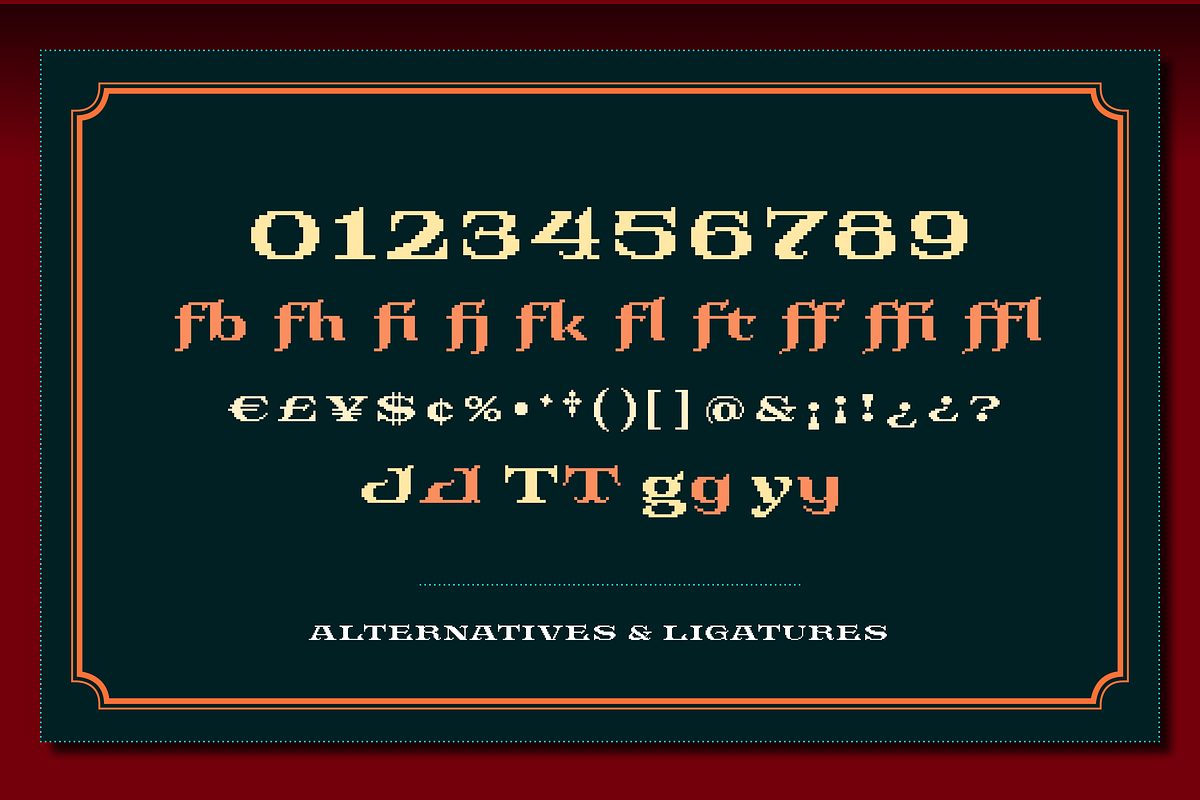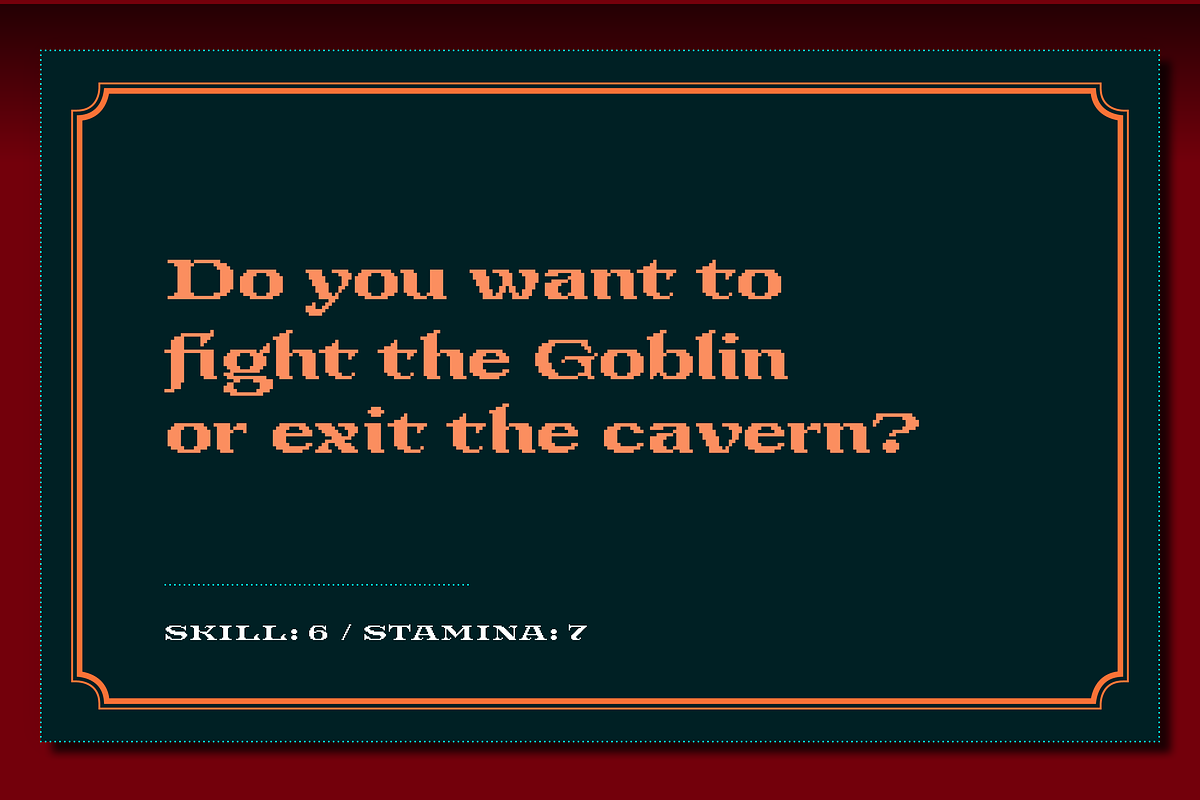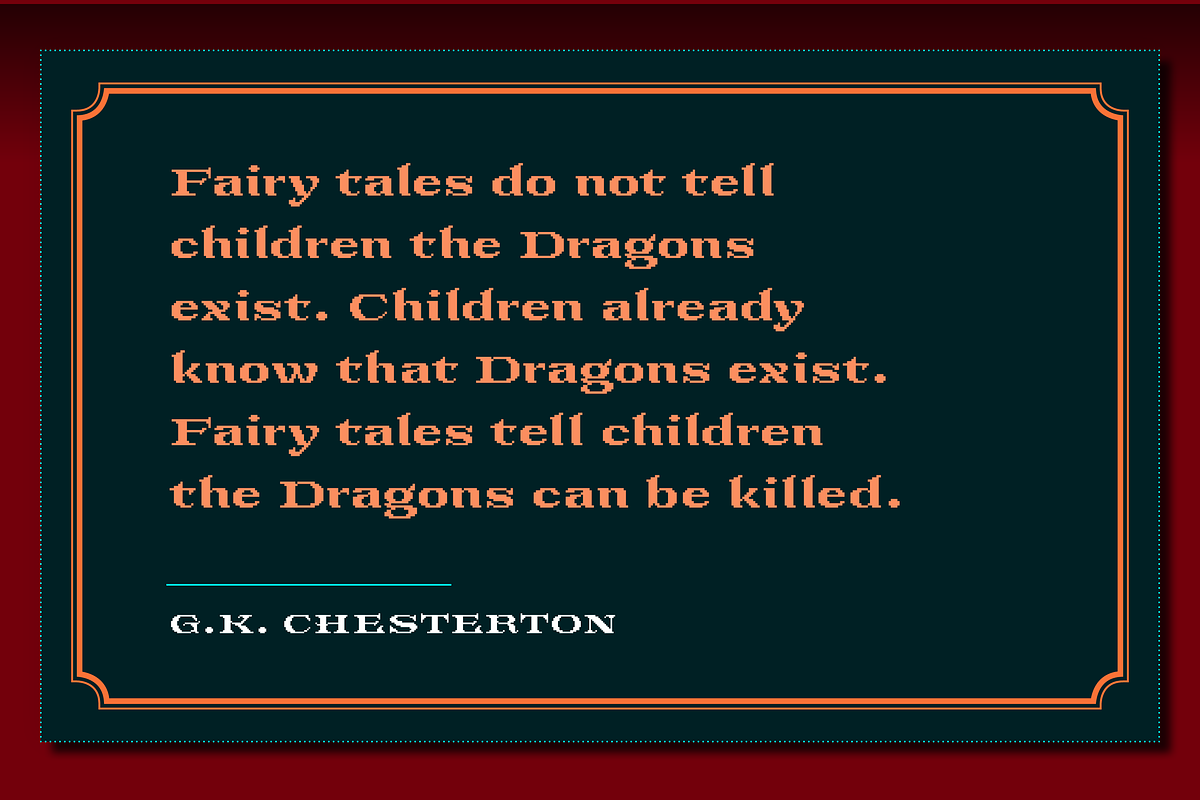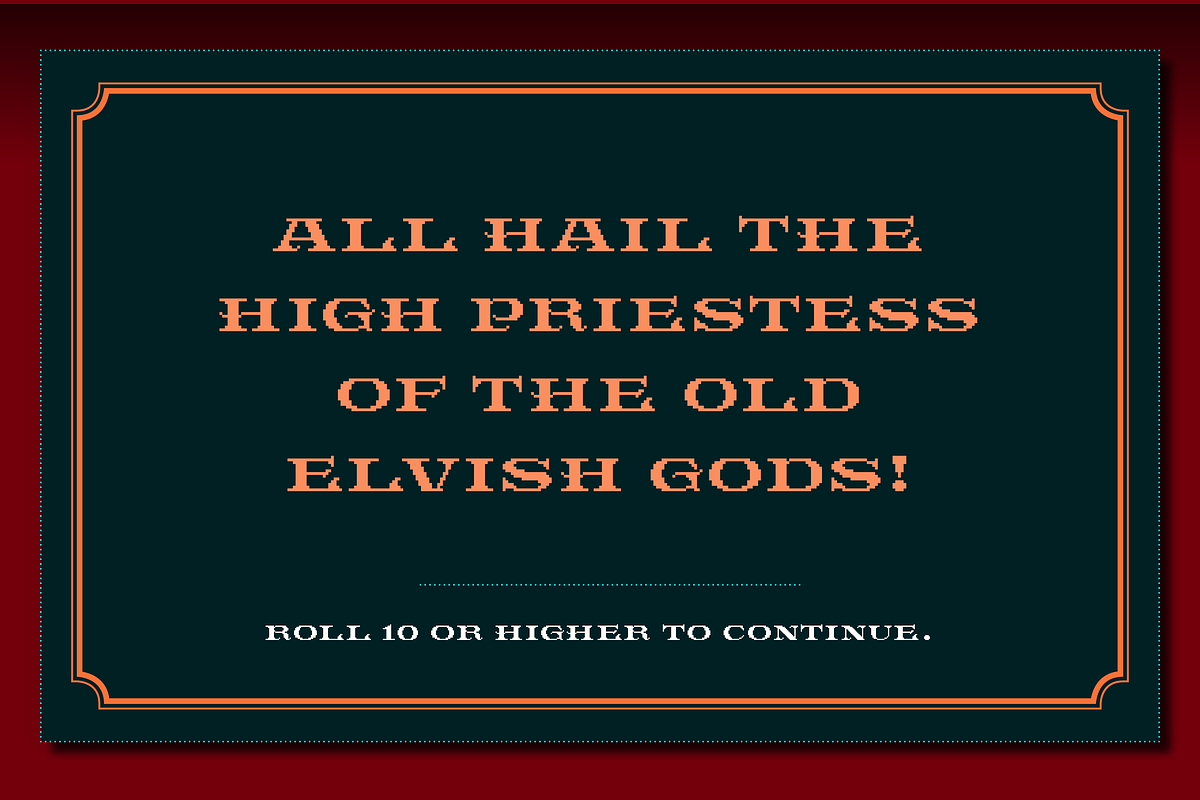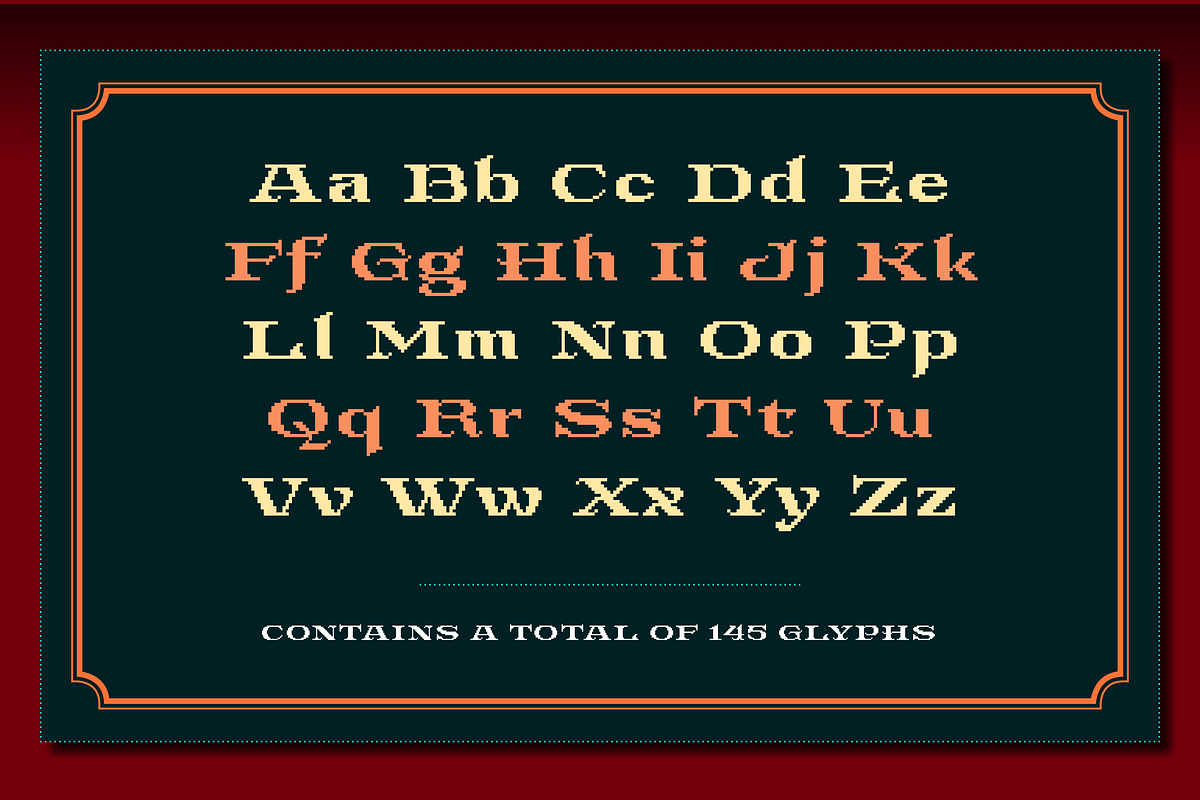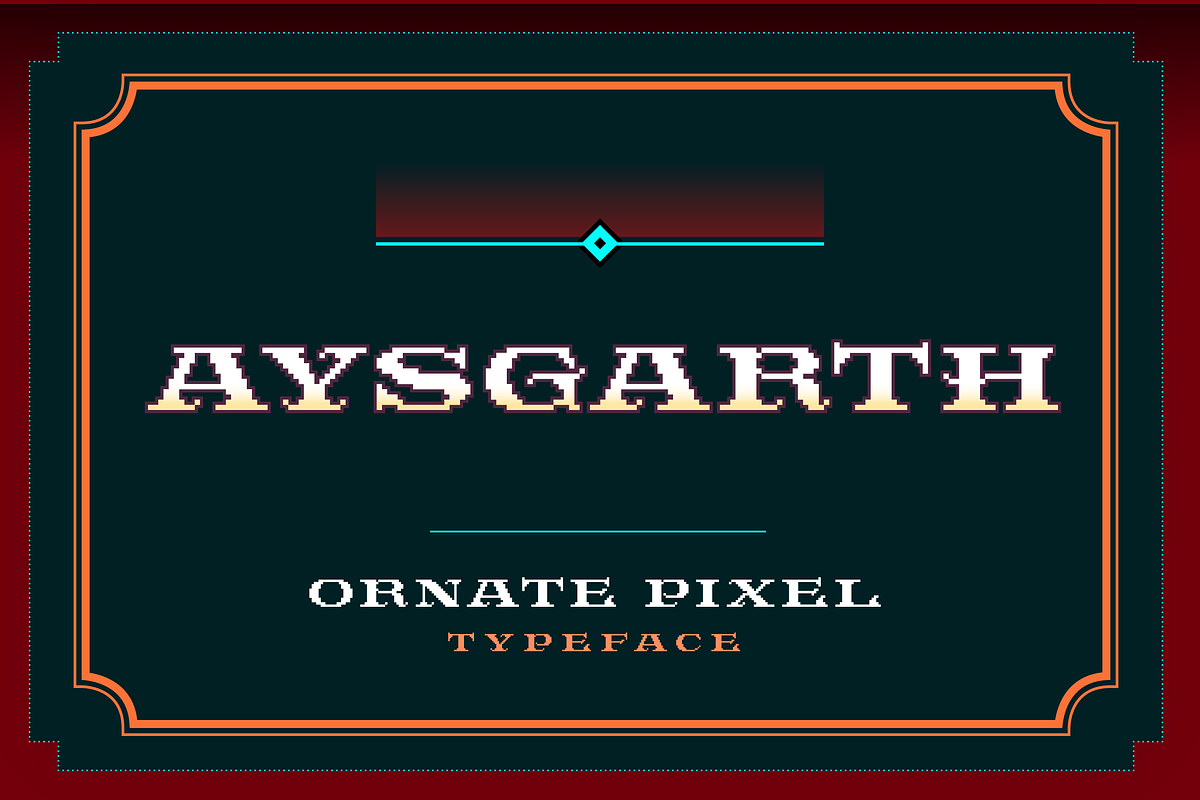
Aysgarth Ornate Pixel Font
SB Aysgarth is an ornate pixel font designed as a typeface for vintage style or fantasy themed games. It has alternative characters for some letters.
- Alternative glyphs for T, J, g and y.